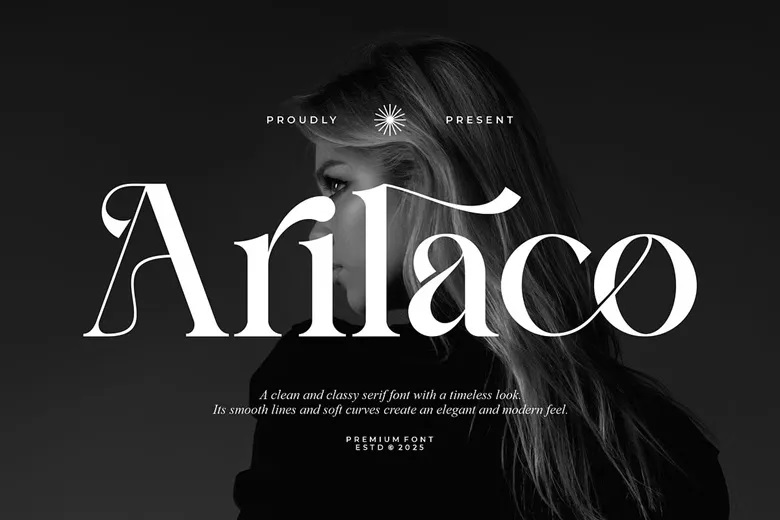
Arilaco Font
Arilaco is the contemporary and elegant serif font to be used in any branding and logo design. It is a beautiful, modern and stylish Serif typeface. It is applicable in invitation cards, cool logo, movie titles, movie names, business cards, book titles, brand names, and other designs.
Arilaco is a refined serif typeface that is sophisticated and timely. This font is the ideal companion to any project because of its stylish ligatures.
Arilaco Serif Font